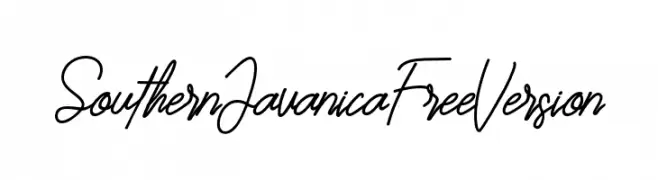
An elegant script font with ornate uppercase and smooth cursive lowercase letters.
A cursive script font with elegant, flowing letterforms and smooth strokes.